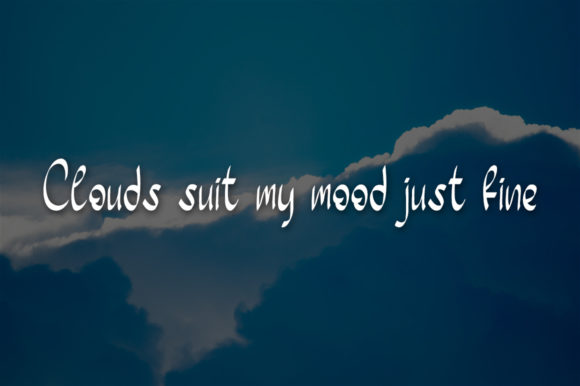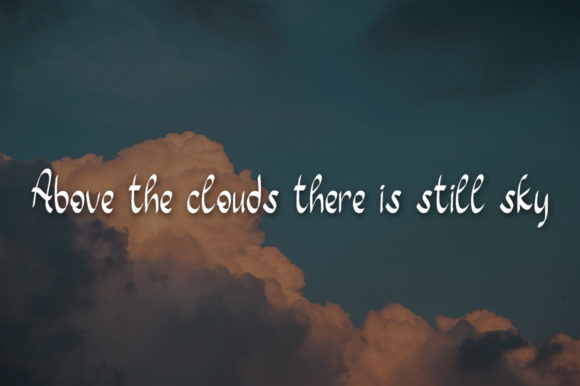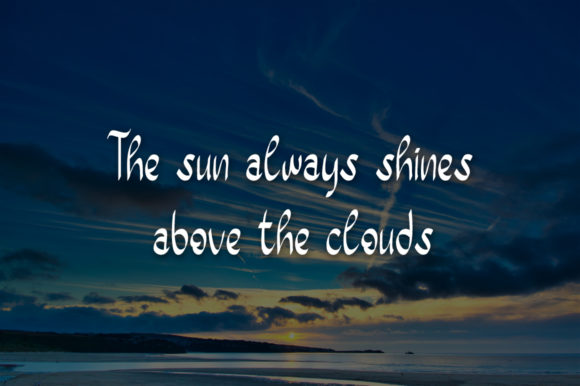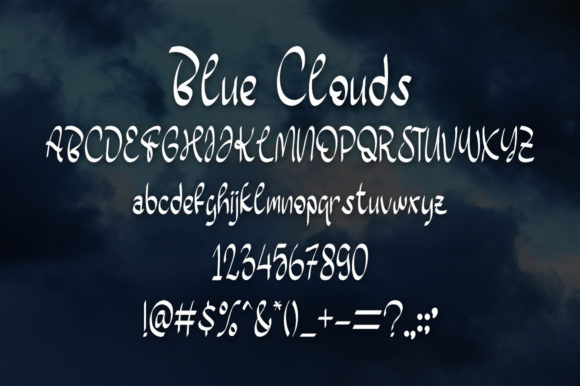
About Blue Clouds Font
Blue Clouds is a delicate and elegant handwritten font that exudes a sense of grace and sophistication. With its beautifully rounded letters and smooth curves, this font is a true masterpiece that adds a touch of refinement to any design.
The versatility of Blue Clouds allows it to adapt to a wide range of creative projects. Whether you’re designing wedding invitations, thank you cards, quotes, greeting cards, logos, or any other type of visual content, Blue Clouds will add an element of elegance and charm that captivates the audience.
In wedding invitations, Blue Clouds sets the perfect tone for a romantic and special occasion. Its delicate and flowing letters convey a sense of beauty and love, making the invitations even more enchanting and memorable.
Thank you cards designed with Blue Clouds feel warm and heartfelt. The soft and elegant appearance of the font enhances the expressions of gratitude and appreciation, creating a meaningful and personal connection with the recipients.
When used in quotes and greeting cards, Blue Clouds elevates the messages, turning them into beautiful and inspiring pieces of art. Its versatility allows it to convey various moods and emotions, making it suitable for a wide range of occasions and themes.
In logos, Blue Clouds adds a touch of sophistication and refinement, helping businesses establish a polished and stylish brand identity. Its distinct and well-rounded letters create a sense of professionalism and elegance, making it appealing to potential customers.
Overall, Blue Clouds is a font that you’ll fall in love with for its incredibly versatile style and its ability to transform ordinary designs into spectacular ones. Whether it’s in wedding invitations, thank you cards, quotes, greeting cards, logos, or any other creative project, Blue Clouds will bring a sense of elegance and charm that leaves a lasting impression on your audience. Embrace the beauty of Blue Clouds in your designs and watch it elevate your creations to new heights of excellence.